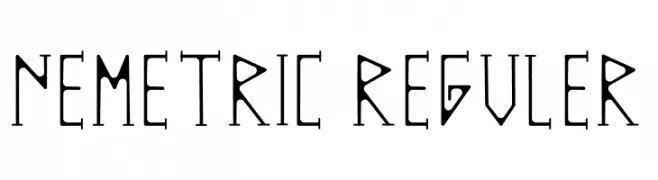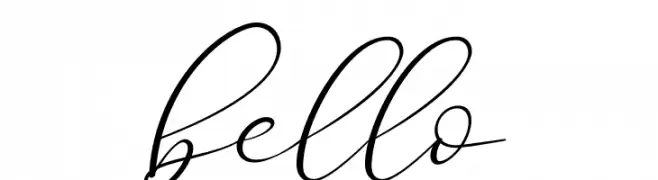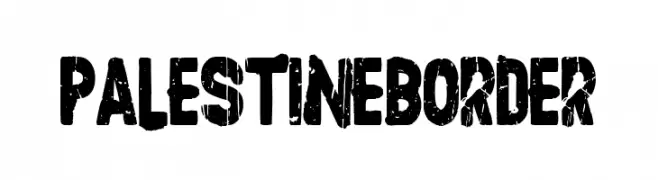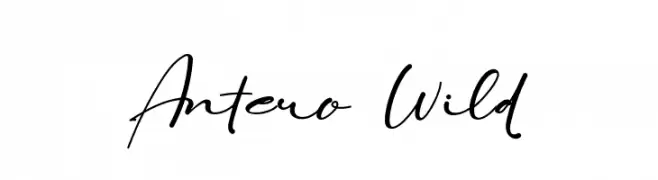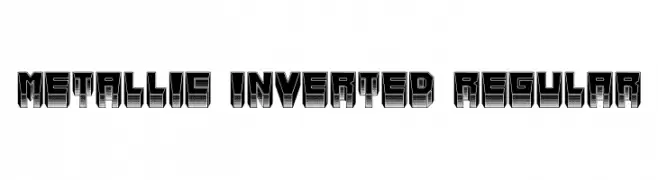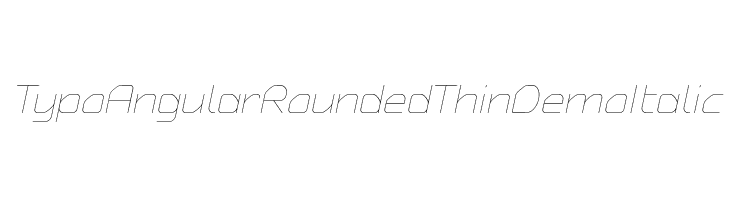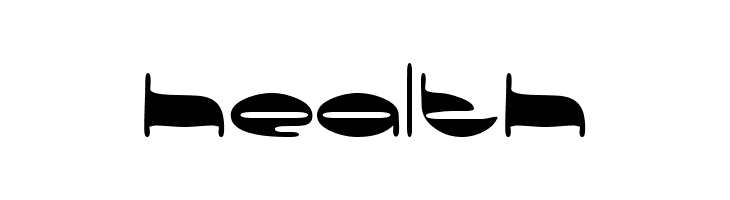
A bold, condensed font with strong verticality and uniform weight.
A bold, geometric font with artistic negative space and circular elements.
A playful, bold, and hand-drawn style font with a whimsical appearance.
A futuristic, geometric font with bold, rounded shapes and unique cutouts.
A bold, angular font with a geometric and modern aesthetic.
A graceful script font with fluid, cursive strokes and elegant flourishes.
A playful, handwritten font with a whimsical and friendly style.
A bold, distressed font with a gritty, urban aesthetic.
Elegant handwritten script font.
A bold, three-dimensional font with a metallic, futuristic appearance.